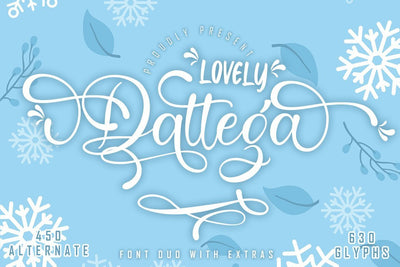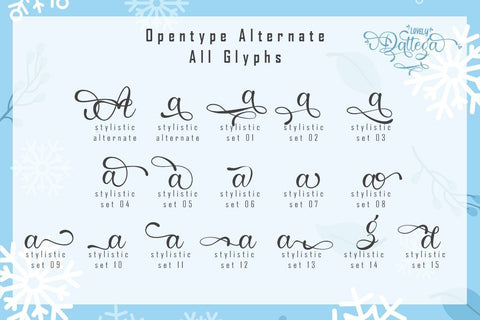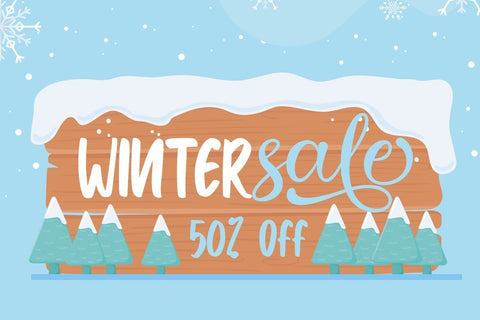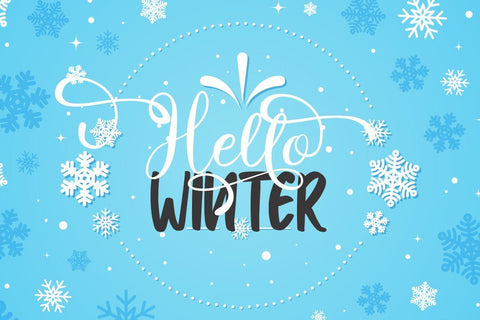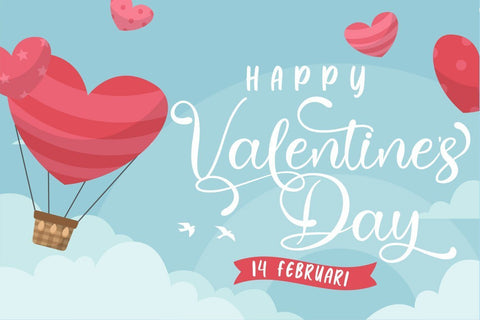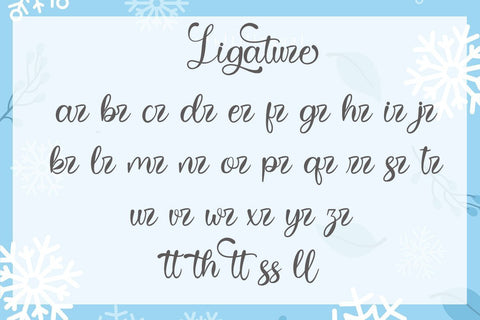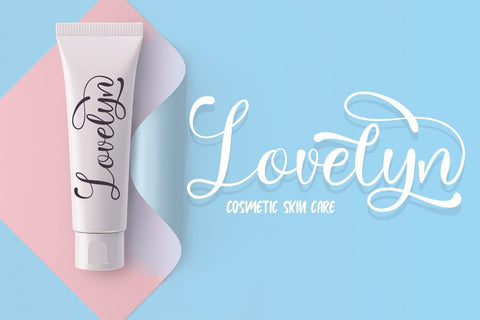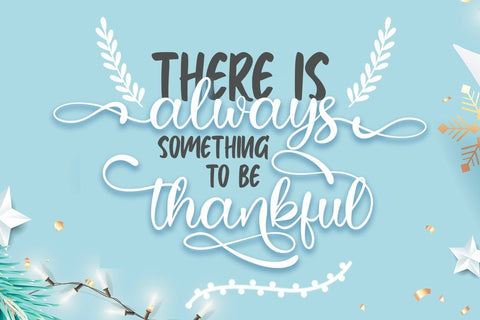
Lovely Dattega - Font Duo with extras
Lovely Dattega is a sweet duo font (script and sans). Incredibly versatile, this font fits a wide pool of designs, elevating them to the highest levels. Add this font to your favorite creative ideas and notice how it makes them come alive!